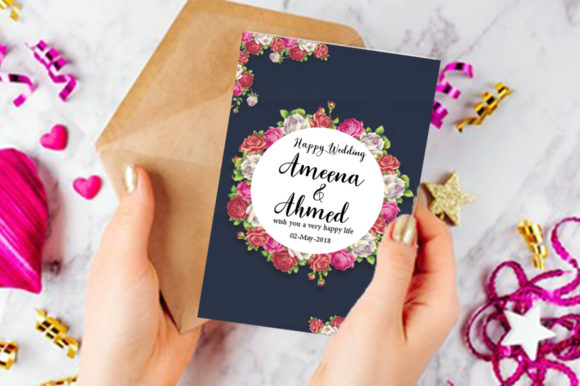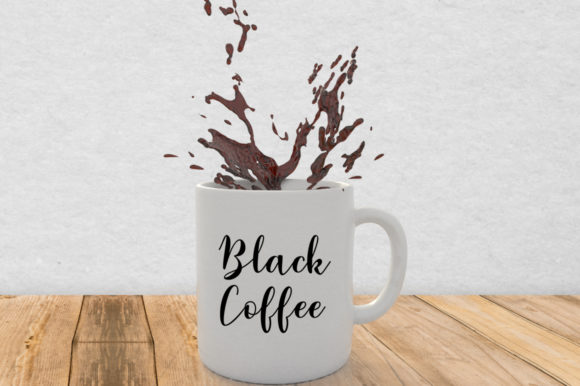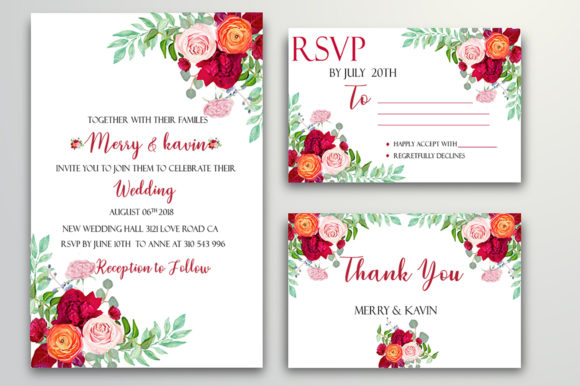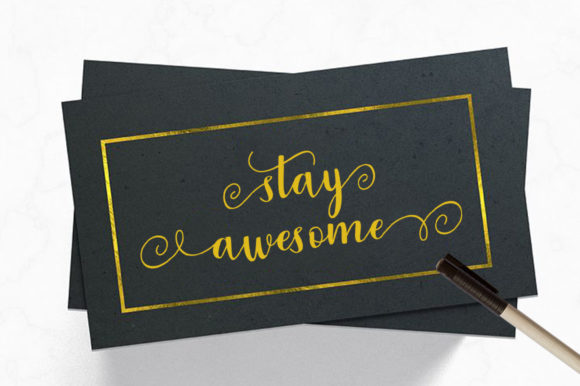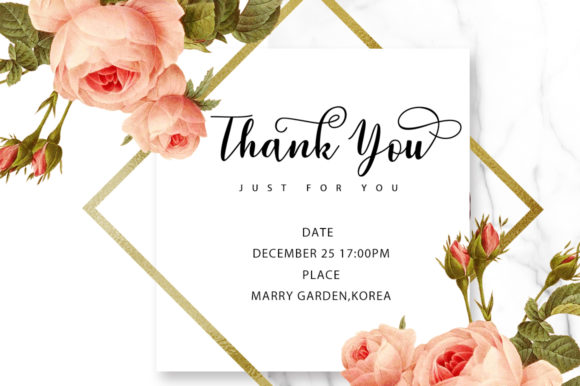
HomeScript FontsRaspberry Duo Font Script Fonts Raspberry Duo Font FacebookXPinterestWhatsApp Raspberry Duo Font Poster 2 Raspberry Duo Font Poster 3 Raspberry Duo Font Poster 4 Raspberry Duo Font Poster 5 Raspberry Duo Font Poster 6 Raspberry Duo Font Poster 7 About Raspberry Duo Font Raspberry is a sweet and delicious handwritten font duo with a lovely twist. Get inspired by its unique charm! DOWNLOAD NOW People also explored Shenandoah Clarendon Family Crochet Fabric Font Mischief – Brush font + Extras Zimbara Font Hello My Name is Font Skinny Lemonade Font Spicy Garlic Font Santhyara Font Premium Signature Font 355 0 TagsRaspberry Duo Font Previous articleStayhill FontNext articleSunday Font LEAVE A REPLY Cancel reply Comment: Please enter your comment! Name:* Please enter your name here Email:* You have entered an incorrect email address! Please enter your email address here Website: Save my name, email, and website in this browser for the next time I comment. Personal Use Free Reztop Personal Use Free Read more about this font Yukarimobile Personal Use Free Read more about this font Frizton Personal Use Free Read more about this font Letter Clips Personal Use Free Read more about this font BLOG Exploring Font Trends Shaping Communication in the Digital Era Fonts, like all design elements, are subject to trends. They play a crucial role in communicating a brand's personality,... How to Install and Use Fonts on Windows, macOS, and Web Projects Fonts That Capture the Spirit of New York City Free Fonts Risk: Why Free Fonts Can Be Dangerous for Designers